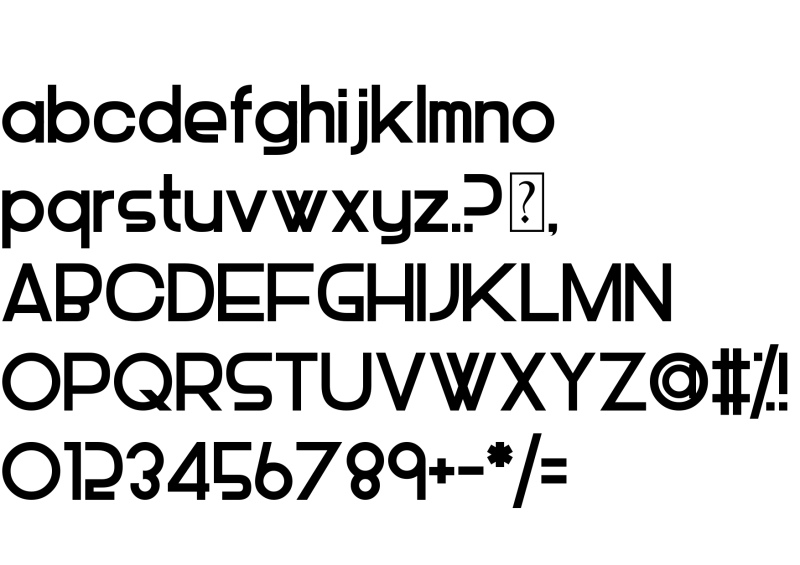
Piescese Font Free . Piescese is a sans serif type font that can be used on. Web 1 matching request on the forum.
Piescese is a sans serif type font that can be used on. Web piescese is a free font for personal use created by chequered ink. Web piescese font :